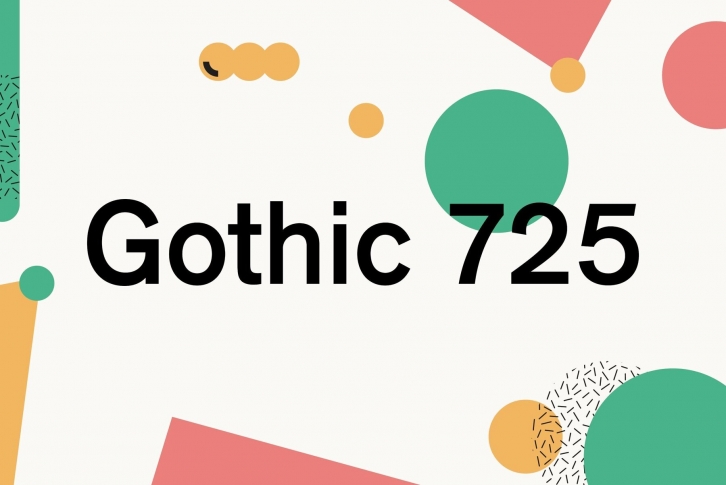
Gothic 725 is the Bitstream version of Akzidenz-Grotesk first issued in 1898 by H. Berthold type foundry (Berlin). It is one of the most famous earliest Sans Serifs known as Grotesques. As its name says Akzidenz-Grotesk is ideal for ‘jobbing’ printing, tables, headlines and newsletters. Also the face was frequently used as a body type especially in the middle of the 20th century by a Swiss design movement. Cyrillic version was developed for ParaType in 2002 by Tagir Safayev.